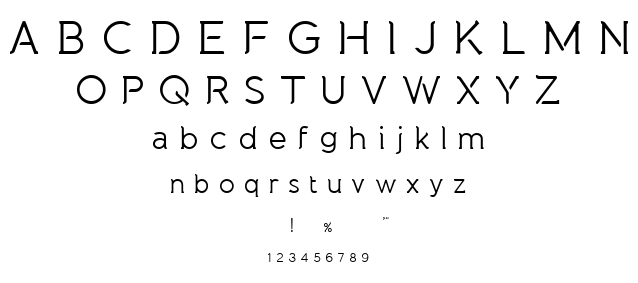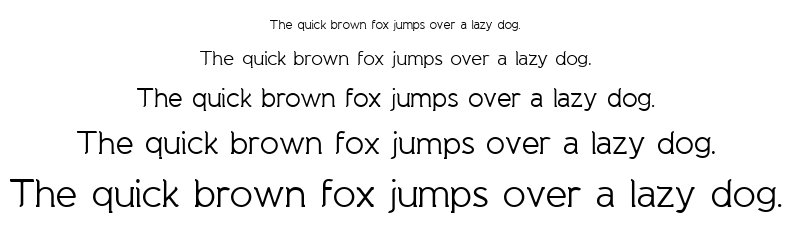
Natura Play
Natura Play Font
Natura Play is a school project typeface that is inspired by the elements found along Jacob Ballas Children’s Garden @ Singapore. The typeface was designed with essence of nature elements that includes leaves, tree trunks and bridges.